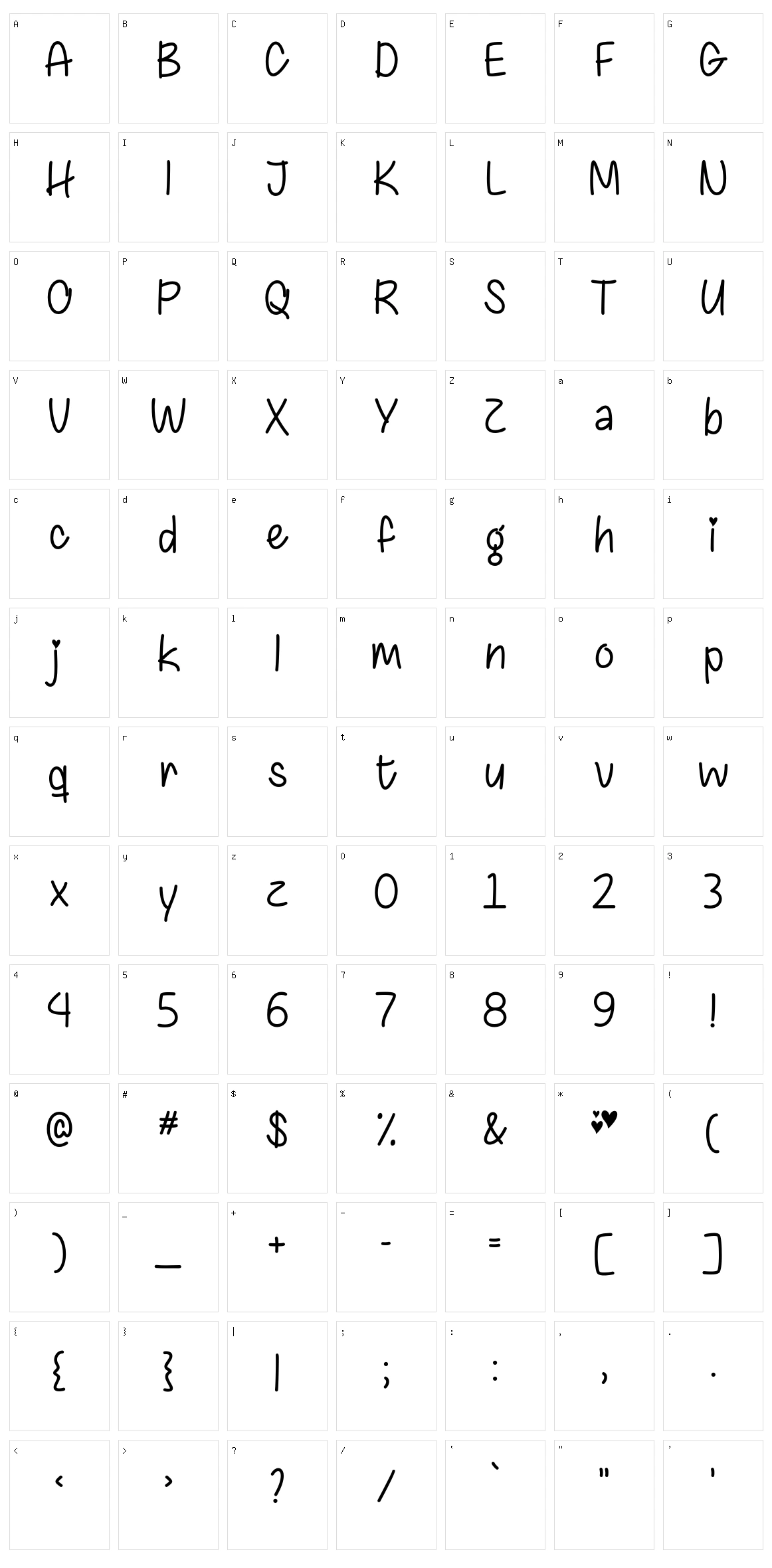
The free font Chasing Hearts is carefully designed by Misti's Fonts, showcasing a thoughtful balance of creativity and usability and falls under the Valentine font style. When you download the ZIP file, it contains only 72.21 KB of font files, making it lightweight and quick to download. Please review the license details below to understand permitted usage and distribution rights. If license information is not available, we recommend using this font for personal projects only or contacting the author directly for commercial usage permissions.